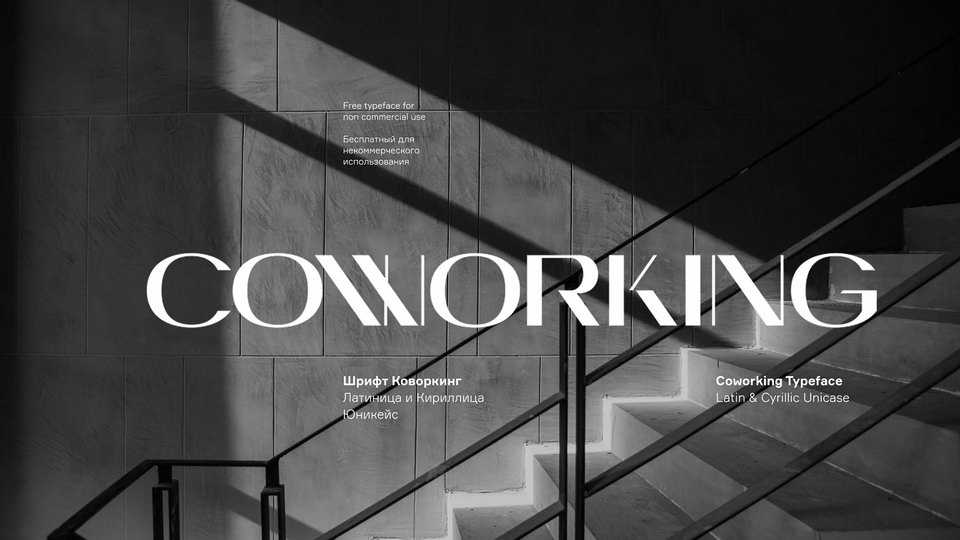
Download Coworking font. a high contrast and wide display sans serif typeface designed for logos, posters and headlines. Coworking supports Latin and Cyrillic languages.
Designer: Stanislav Chiganov